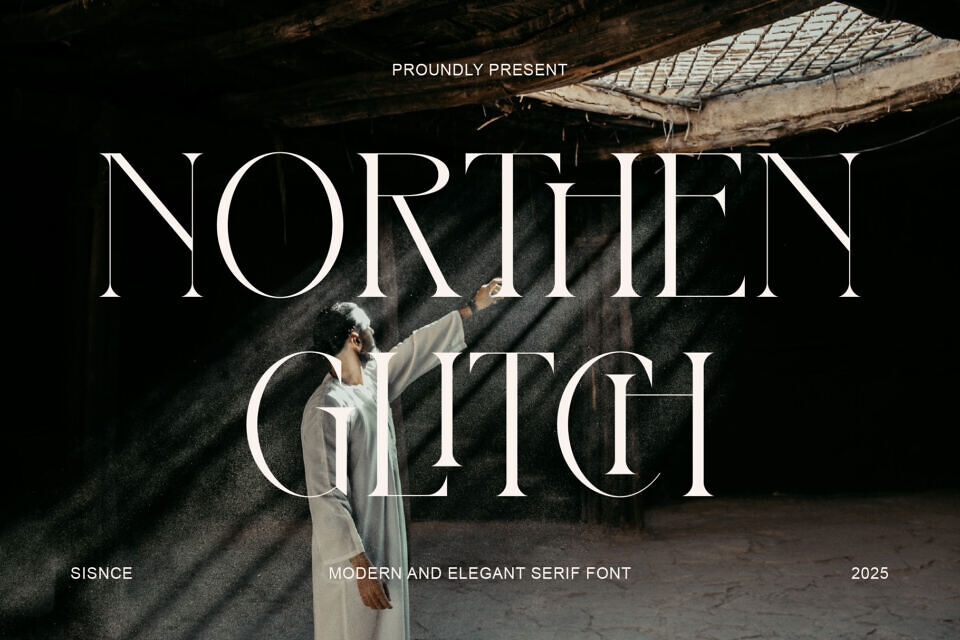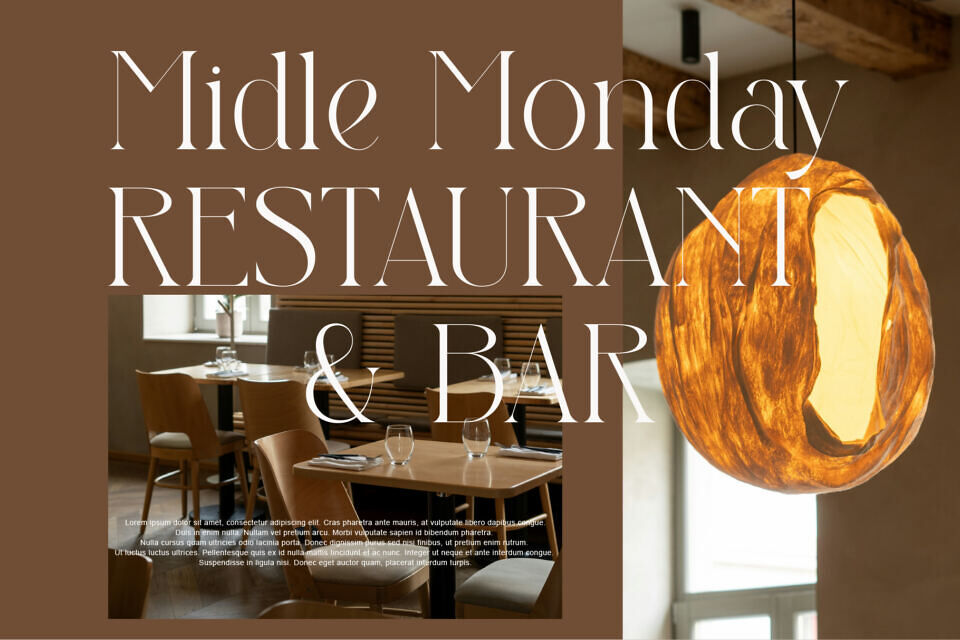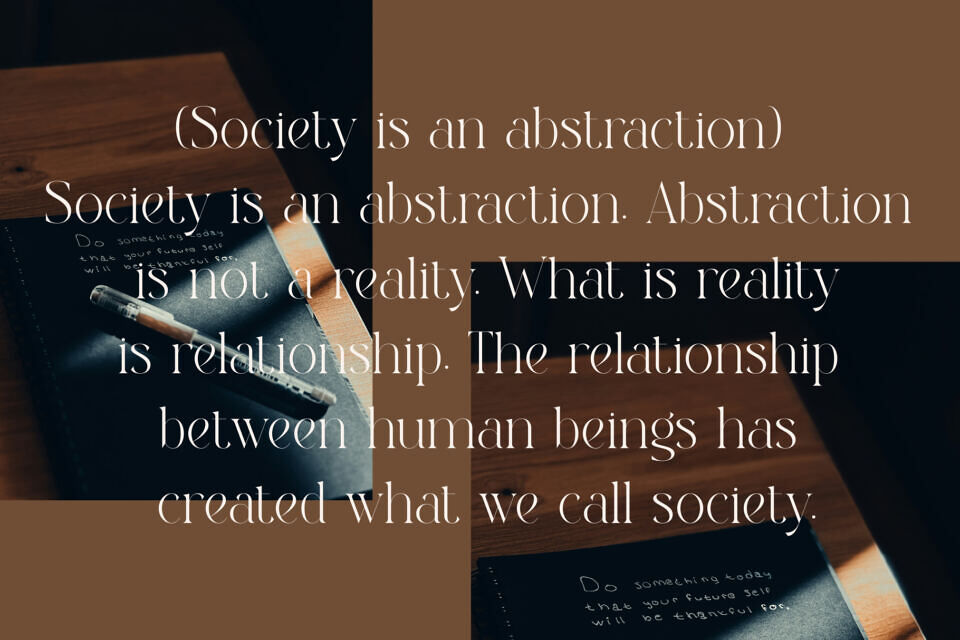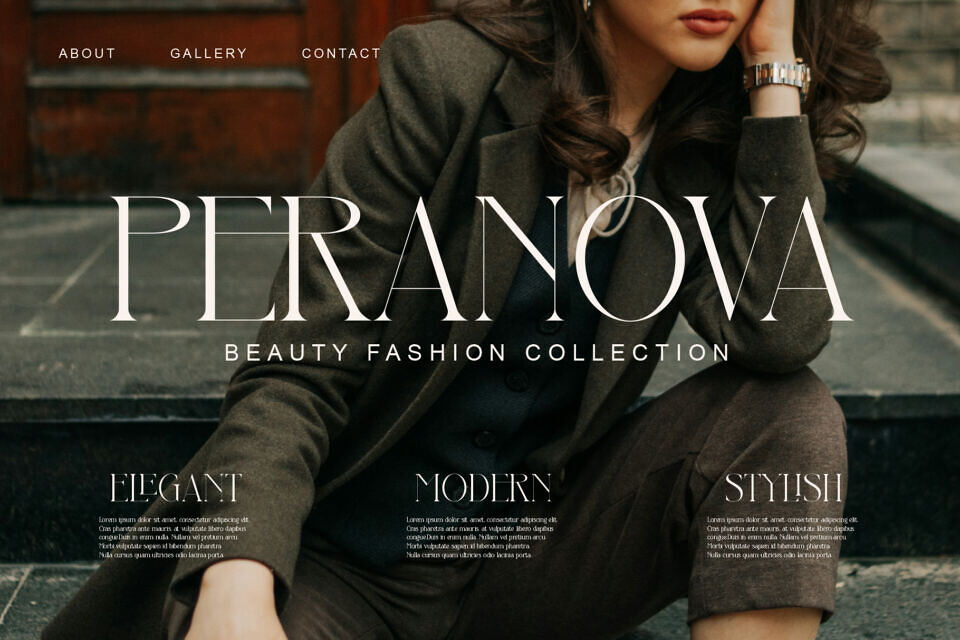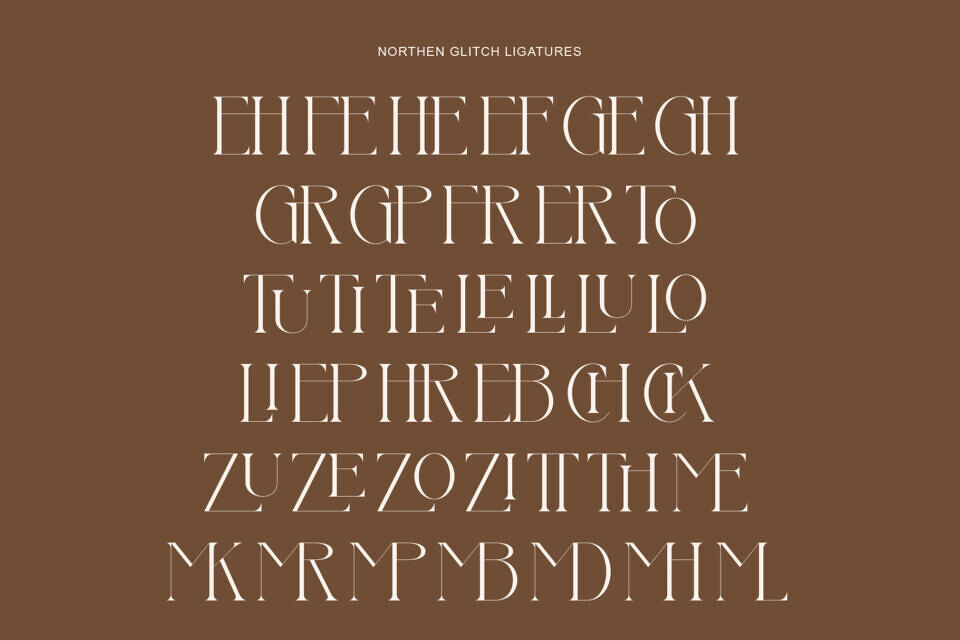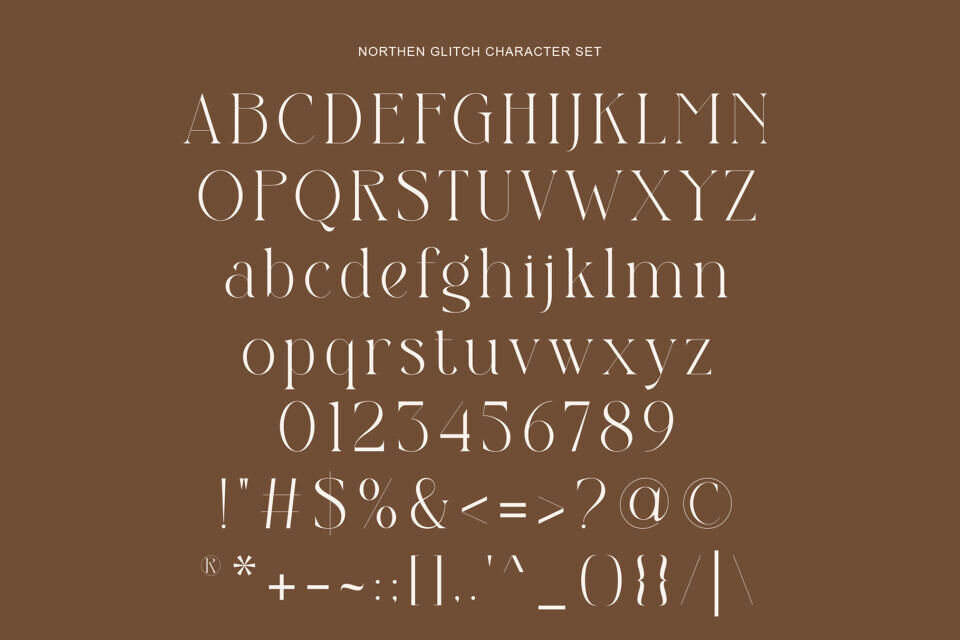
Northen Glitch Font
Introducing Northen Glitch, an elegant, beautiful and modern serif typeface. With its modern and minimalist appearance, Northen Glitch brings a luxurious, classy and clean style to your projects such as websites, modern logos, branding identities, social media quotes, wedding stationery, magazines and various other needs!